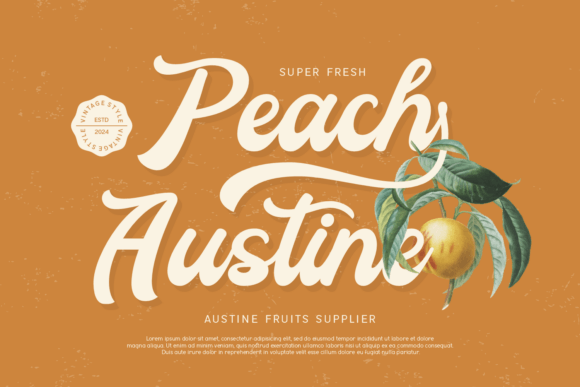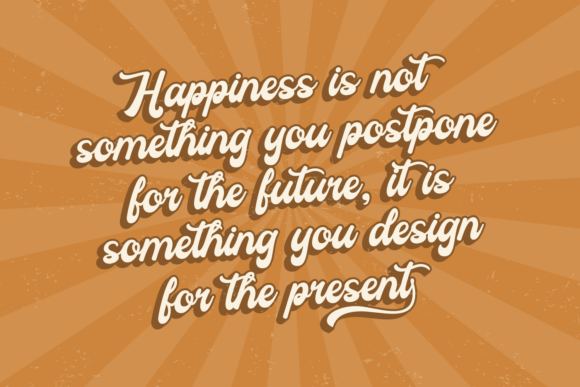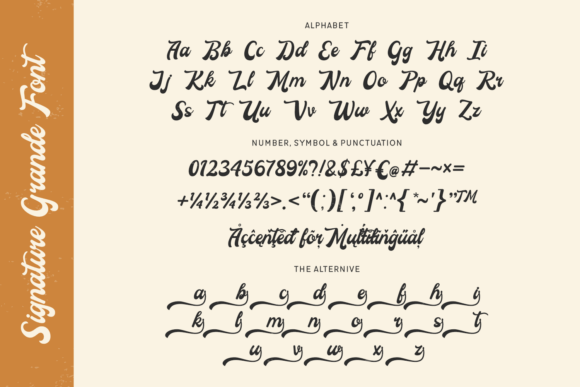
Introduction to Signature Grande Font
As a designer, you’ve probably experienced that moment when you’re working on a creative project and the perfect font just doesn’t seem to be there. You’ve scoured through design resources, searching for something that captures the essence of your vision. That’s when you stumble upon the Signature Grande Font – a stylish vintage script font that instantly elevates your design.
With its elegant curves and cool swashes, the Signature Grande Font is a high-quality addition to any design project. Its handwritten feel adds a personal touch that’s perfect for branding, invitations, or any other creative endeavor. Whether you’re working on a free download or a paid project, this font is sure to make a lasting impression.
Key Features of Signature Grande Font
- High-quality design for creative projects, ideal for logos, branding, and marketing materials.
- Unique characteristics include its modern and elegant aesthetic, making it perfect for high-end branding and luxury designs.
- Comprehensive character set, including uppercase and lowercase letters, numbers, and punctuation marks, for a wide range of design applications.
Honest Review: Signature Grande Font
I recently had the chance to work with the Signature Grande Font for a creative project, and I must say, it’s been a game-changer. This high-quality font has a unique style that adds a touch of sophistication to any design.
- What works well: ✨ The font is highly customizable, allowing you to adjust the size, color, and style to fit your design needs.
However, I did encounter some limitations during my project. ⚠️ The font can be quite heavy, which may not be suitable for designs where you need to include a lot of text. Additionally, some users may find the font’s unique style to be too bold or overpowering.
Overall, I’m impressed with the Signature Grande Font. It’s a great addition to any designer’s toolkit, and its high-quality design makes it a standout choice for creative projects. If you’re looking for a reliable and versatile font, I’d definitely recommend giving it a try.
Tips for Getting the Most Out of Signature Grande Font
Common Use Cases for Signature Grande Font
The Signature Grande Font is perfect for a variety of creative projects, including logos, business cards, and brochures. Its transparent background and high-quality design make it an ideal choice for designers looking for a unique and eye-catching font.